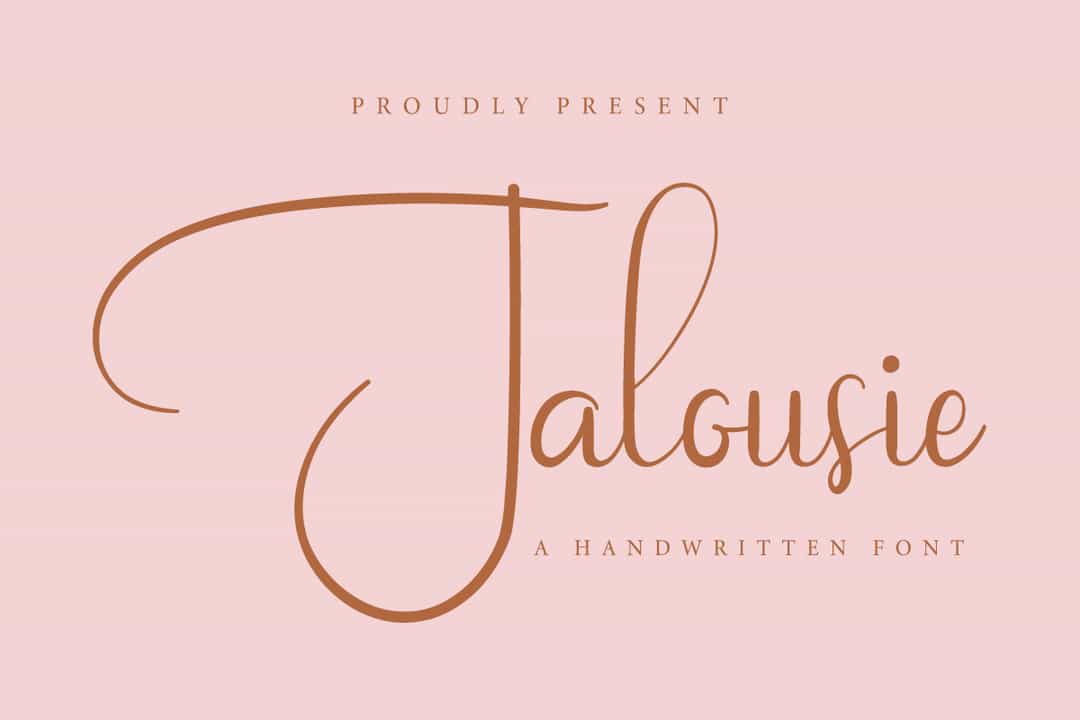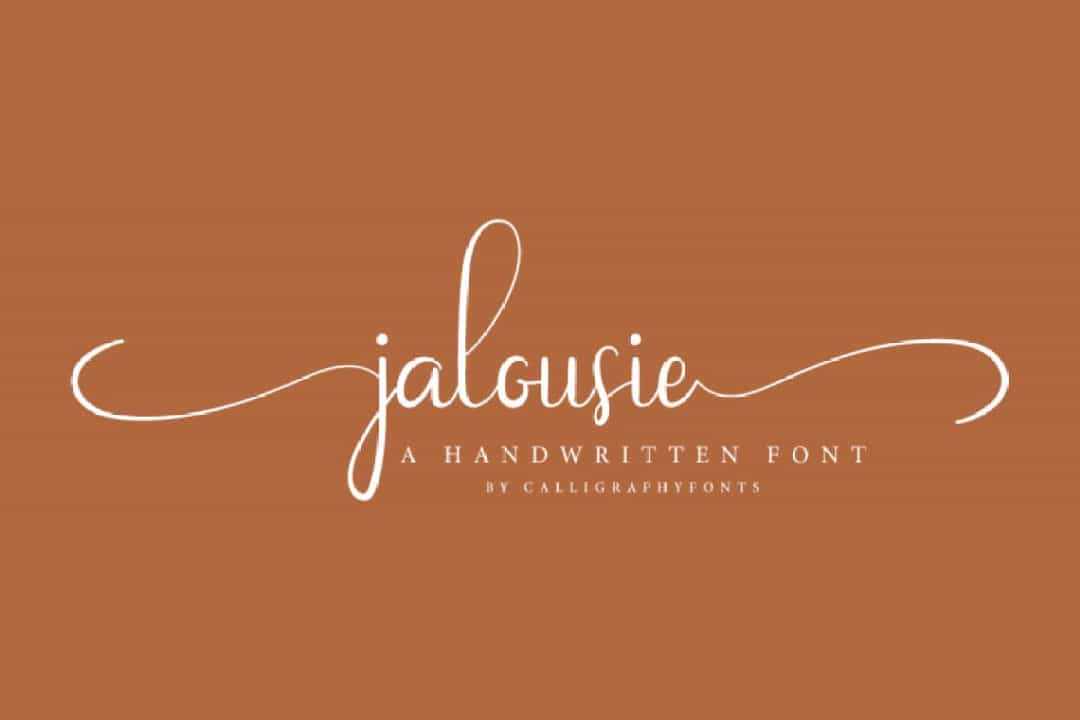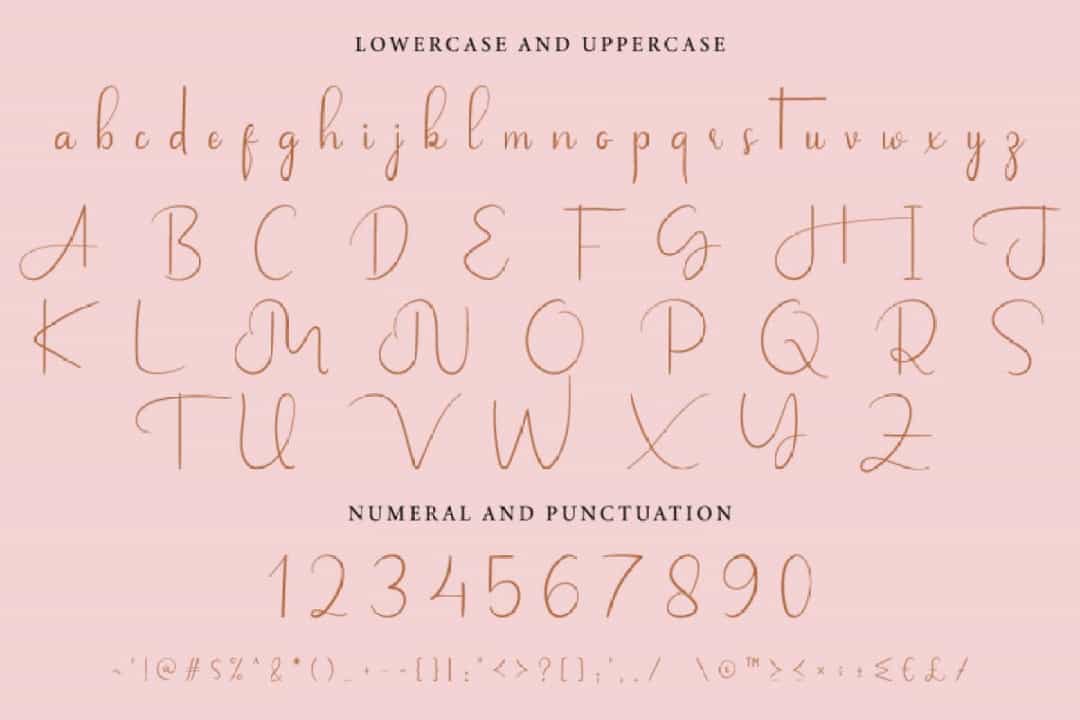
Jalousie is a charming handwritten font. With its organic yet distinctive style, Jalousie fits in well with many different styles; only your imagination limits what it can achieve! Plus it comes encoded to give access to all Swashes and Glyphs instantly!